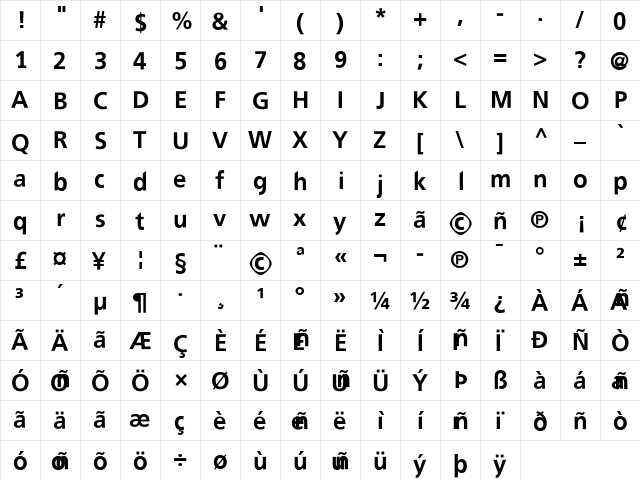
FreewayDemi Medium
Design Context for FreewayDemi Typeface
FreewayDemi offers clean, dependable letterforms without strong stylistic allegiance, making it a practical choice for designers who need flexibility.
Pro Tip: Use FreewayDemi in both headline and body roles to test its range before committing to a single application.